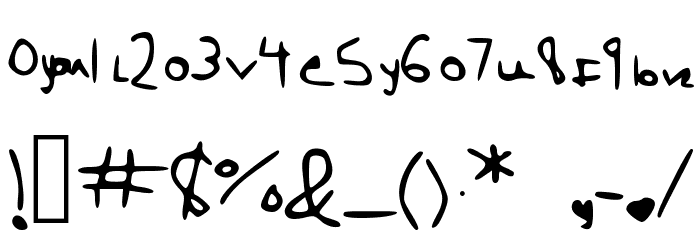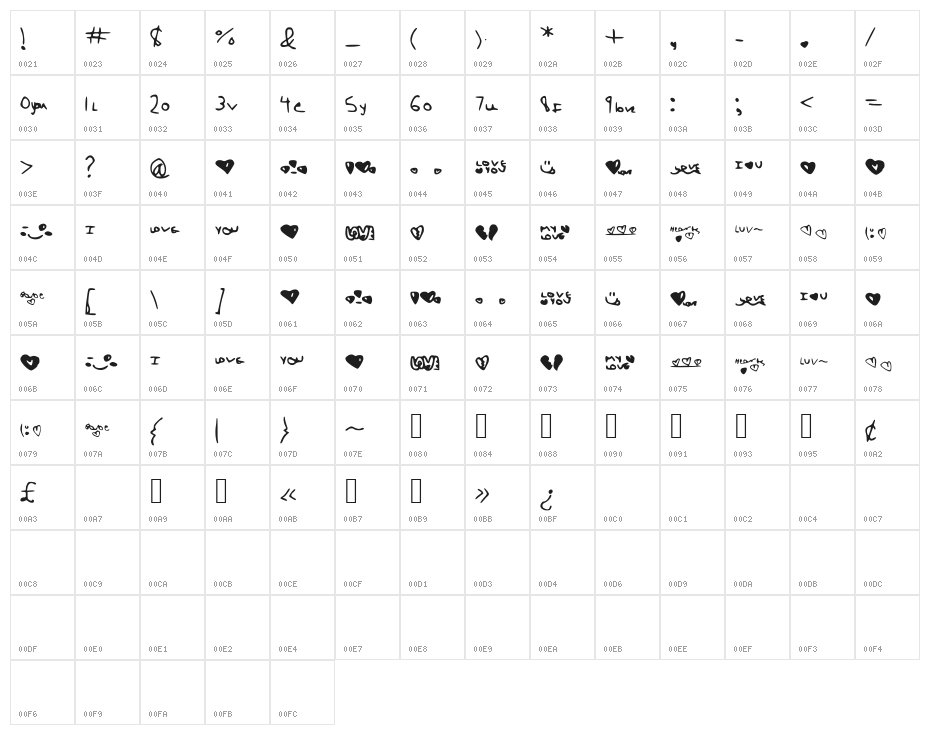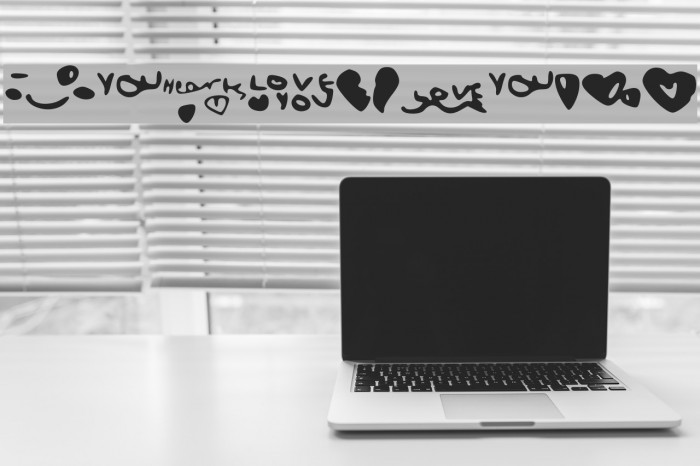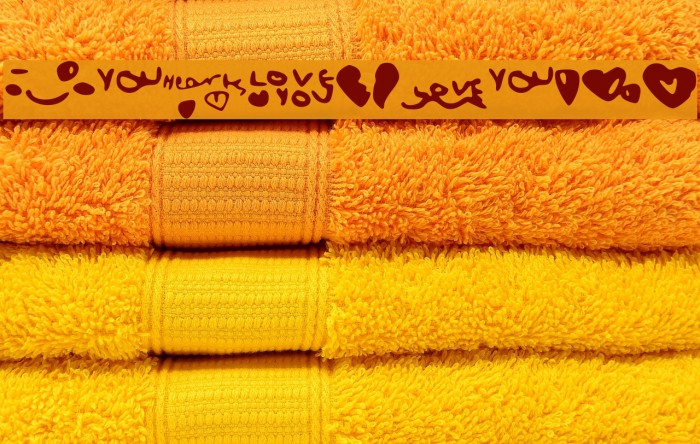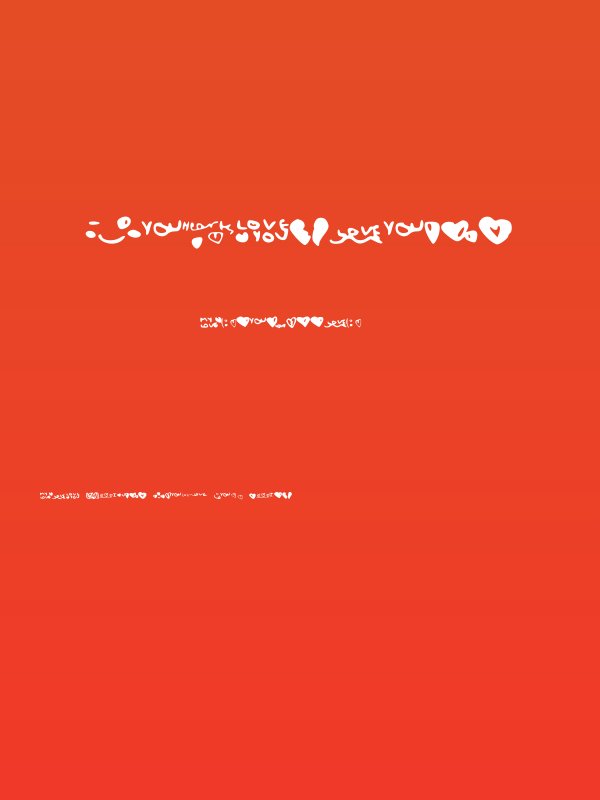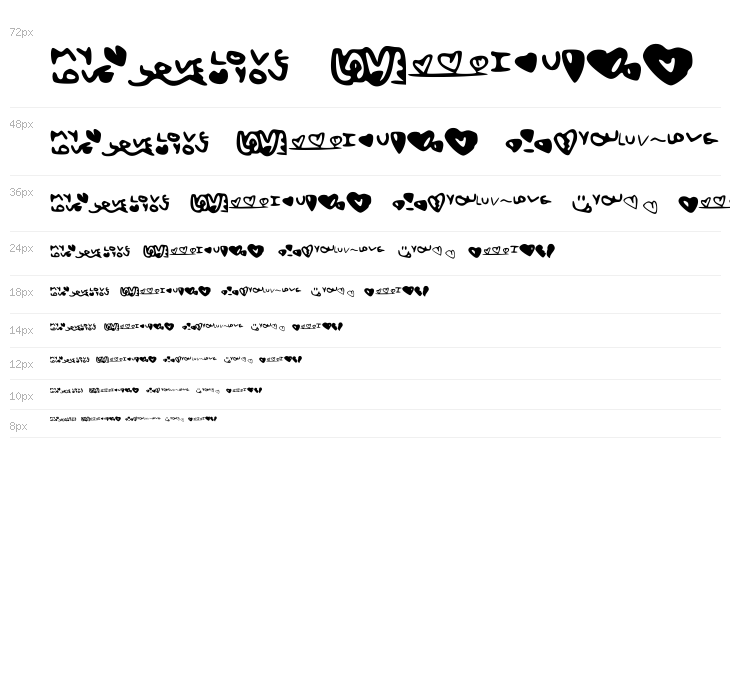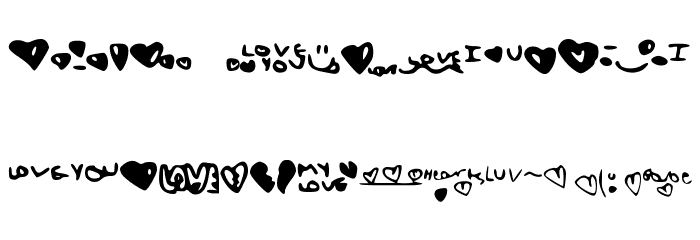
LoveShock Font
LoveShock Description
This playful and whimsical font is characterized by its heart-themed design, incorporating heart shapes into many of the characters. It features a handwritten style with a casual and informal appearance. The letters are uneven and vary in size, adding to the playful aesthetic. The font includes a mix of uppercase and lowercase letters, numbers, and a variety of special characters, all maintaining the heart motif. The overall design is lighthearted and fun, making it ideal for projects that require a touch of romance or playfulness.
Use CaseLogos, Headlines, Greeting Cards
Proposed ProjectsIdeal for Valentine's Day cards, wedding invitations, romantic social media posts, and playful graphic designs.